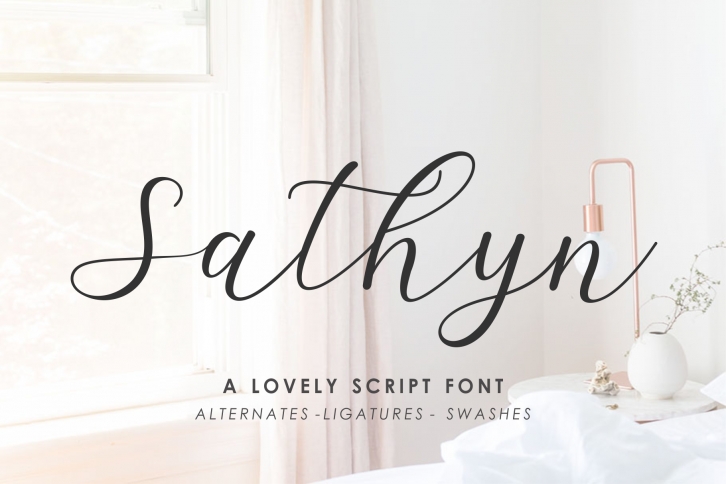
Sathyn Script is a trendy and unique font with an authentic style. It was designed by MJB Letters and it's a great choice for creative people who need such a font. It was released on May 11, 2019 and the file size is 18.42 MB. Sathyn Script will add an organic vibe to any design idea!